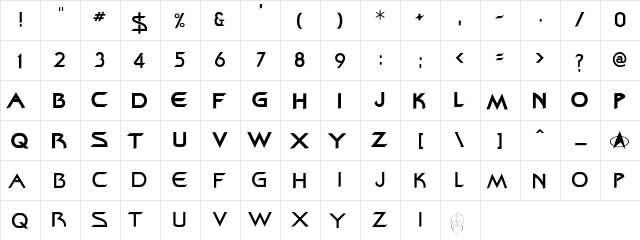
Bajoran Regular
Design Context for Bajoran Typeface
Bajoran takes a measured approach to typography — its balanced proportions and neutral character make it a reliable workhorse for both digital and print work.
Pro Tip: Use Bajoran in both headline and body roles to test its range before committing to a single application.